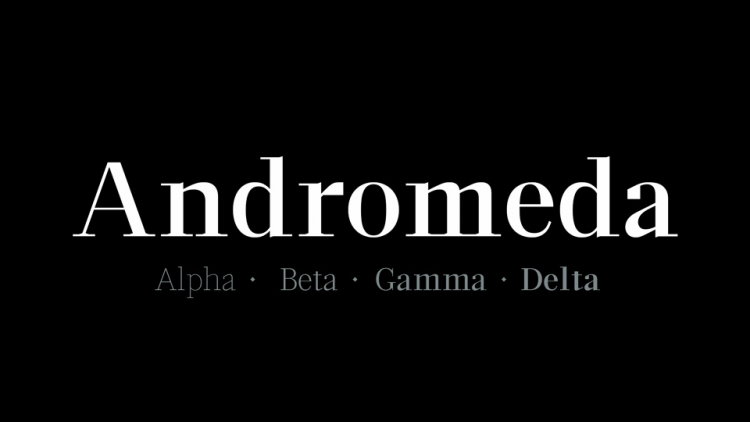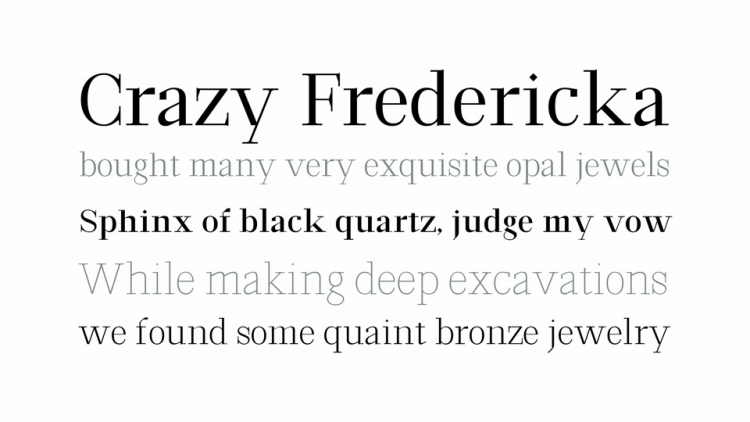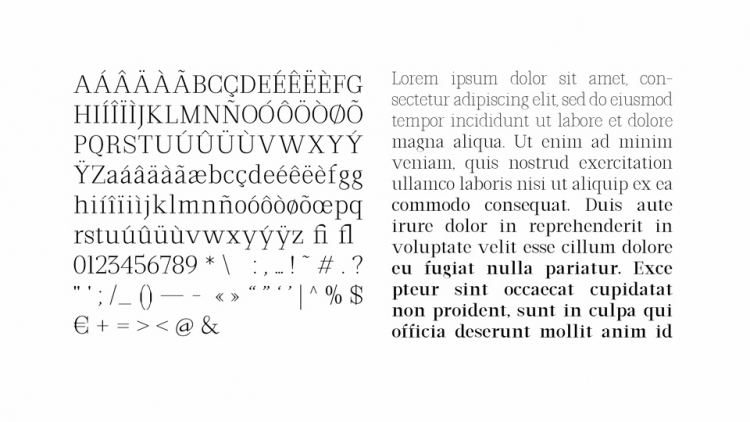
Andromeda Serif Font
This is a modern serif typeface with high contrast and sharp forms. This another collection of Serif is perfect for your next branding project, excellent for your business. Andromeda is perfect for branding, advertising, editorial design and social media.